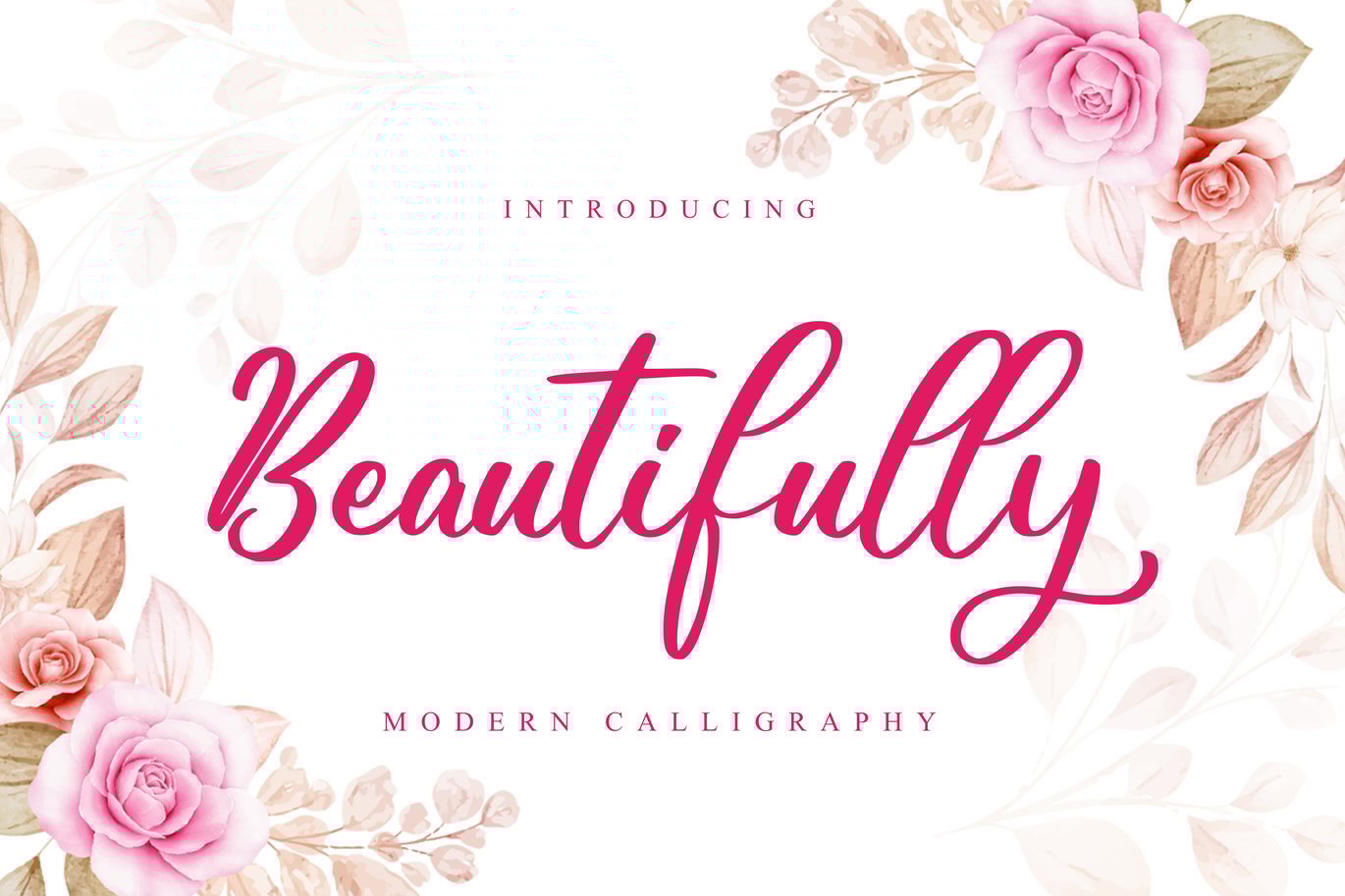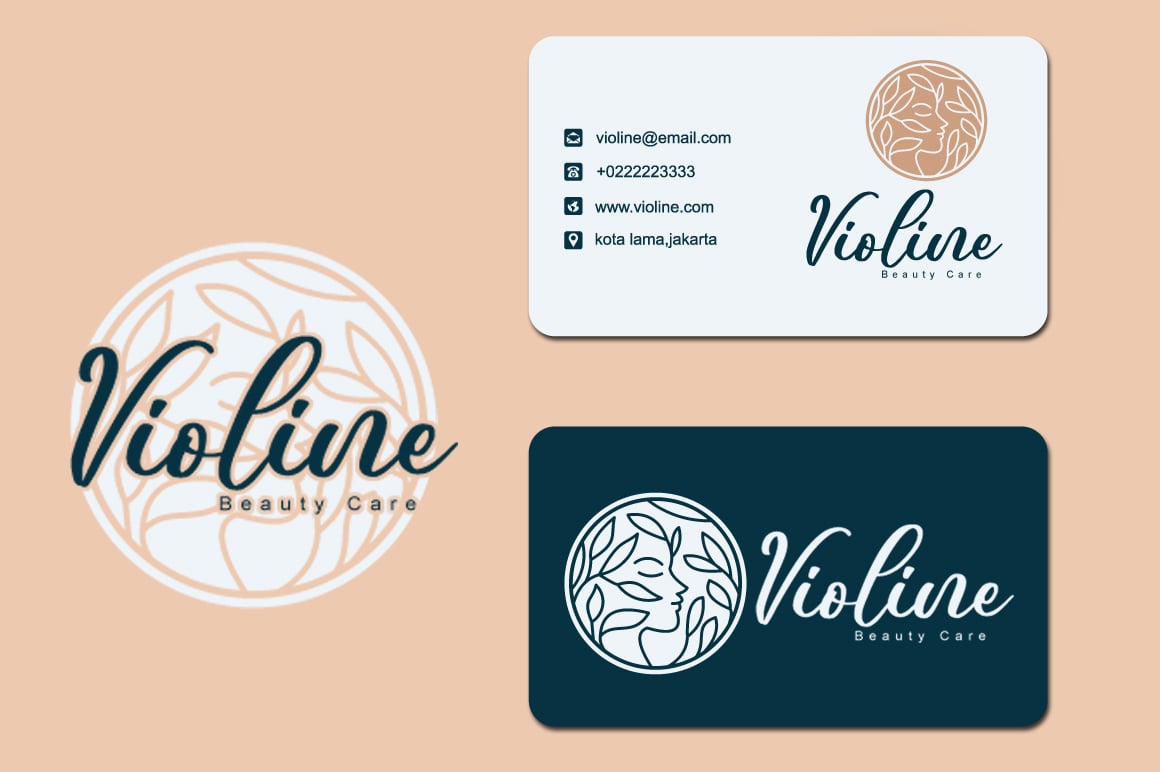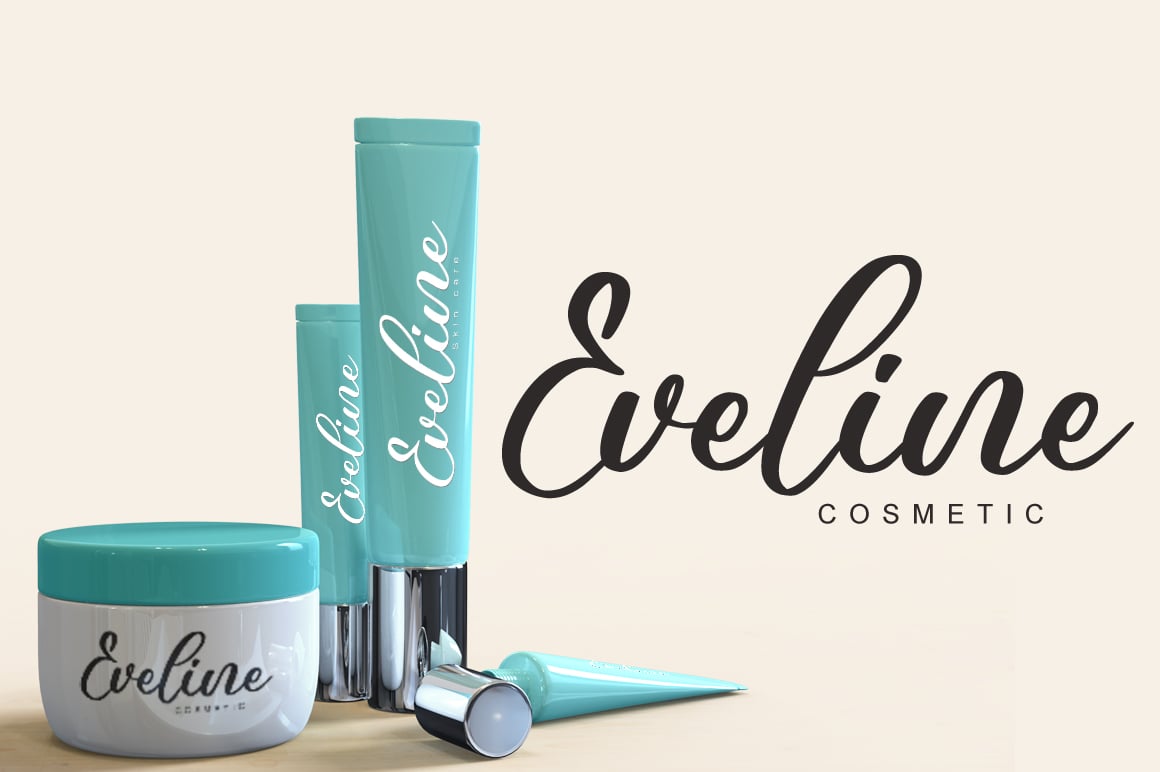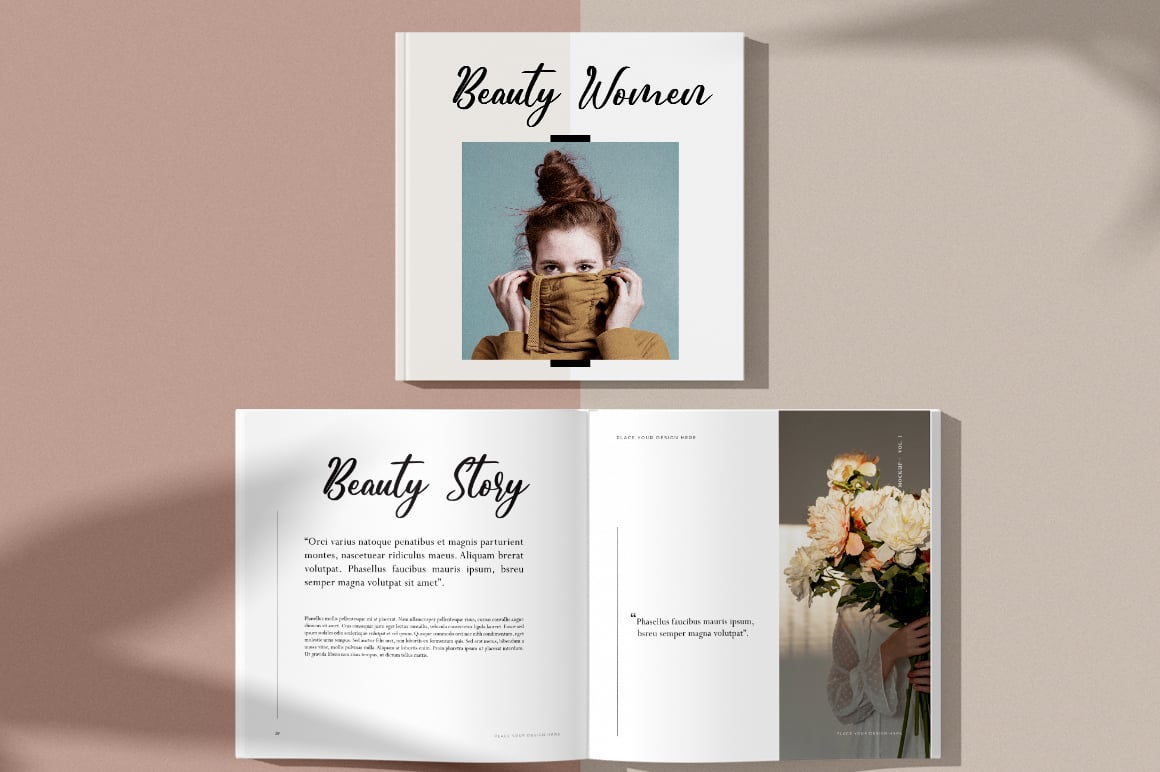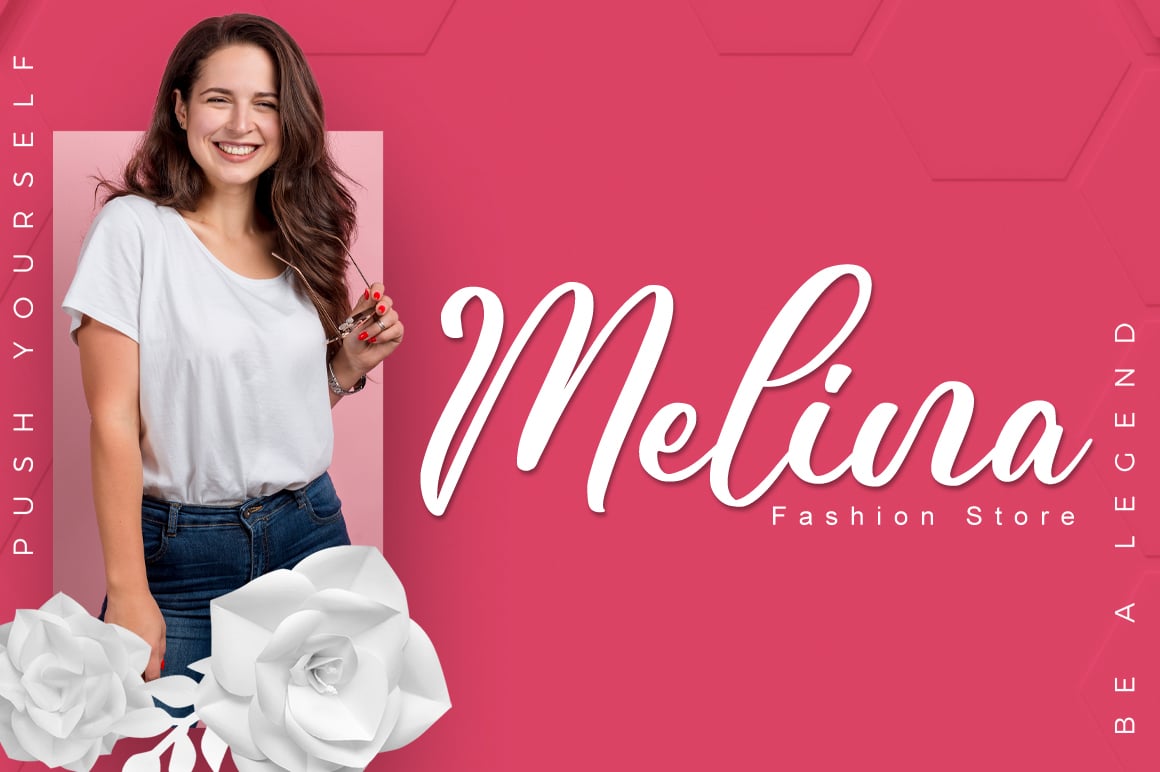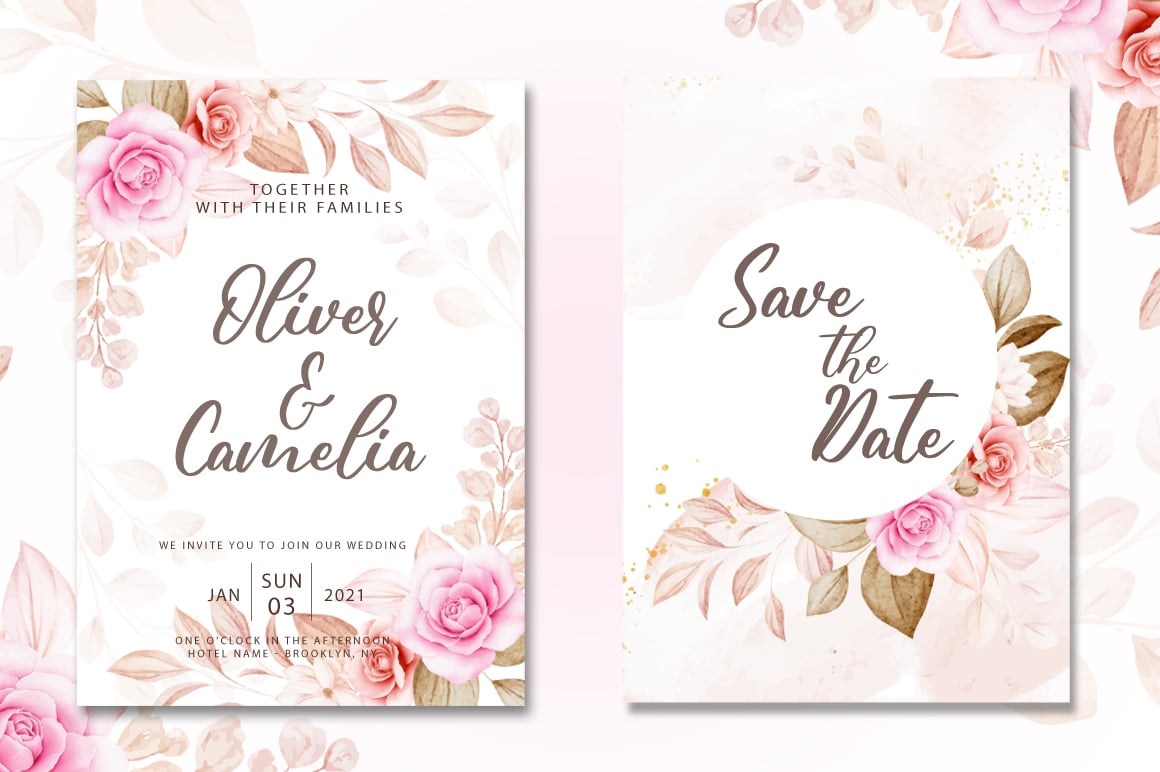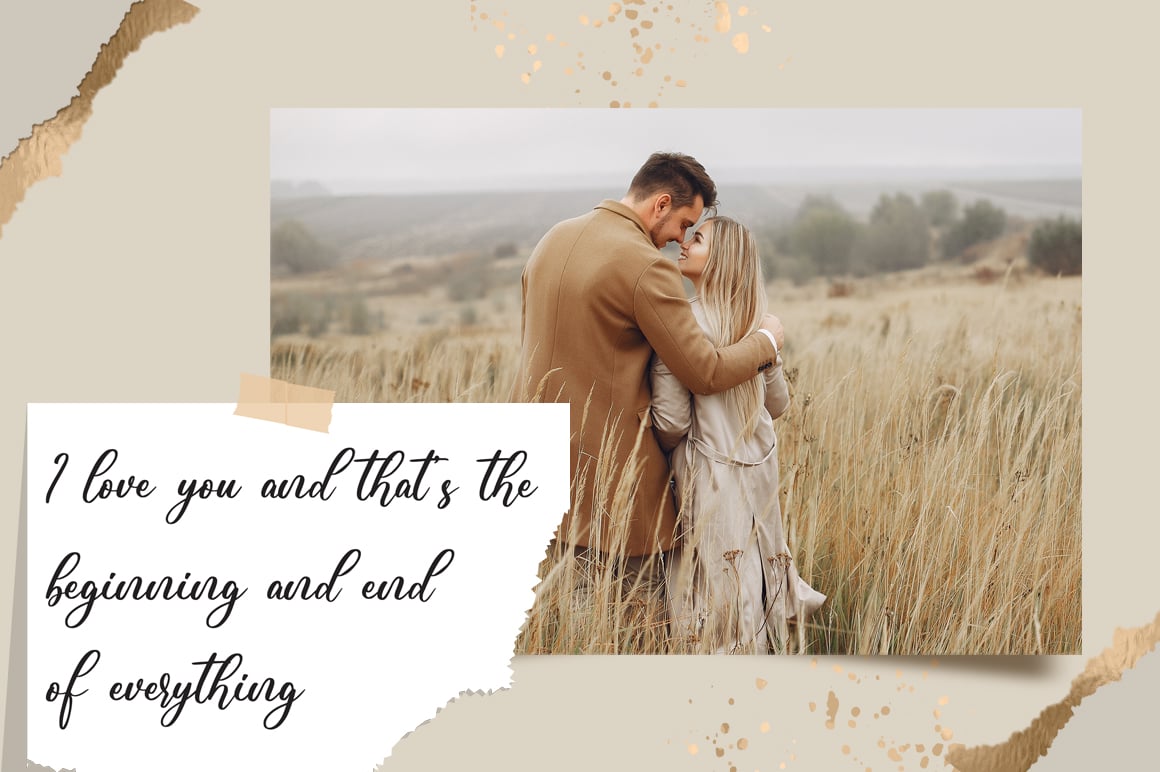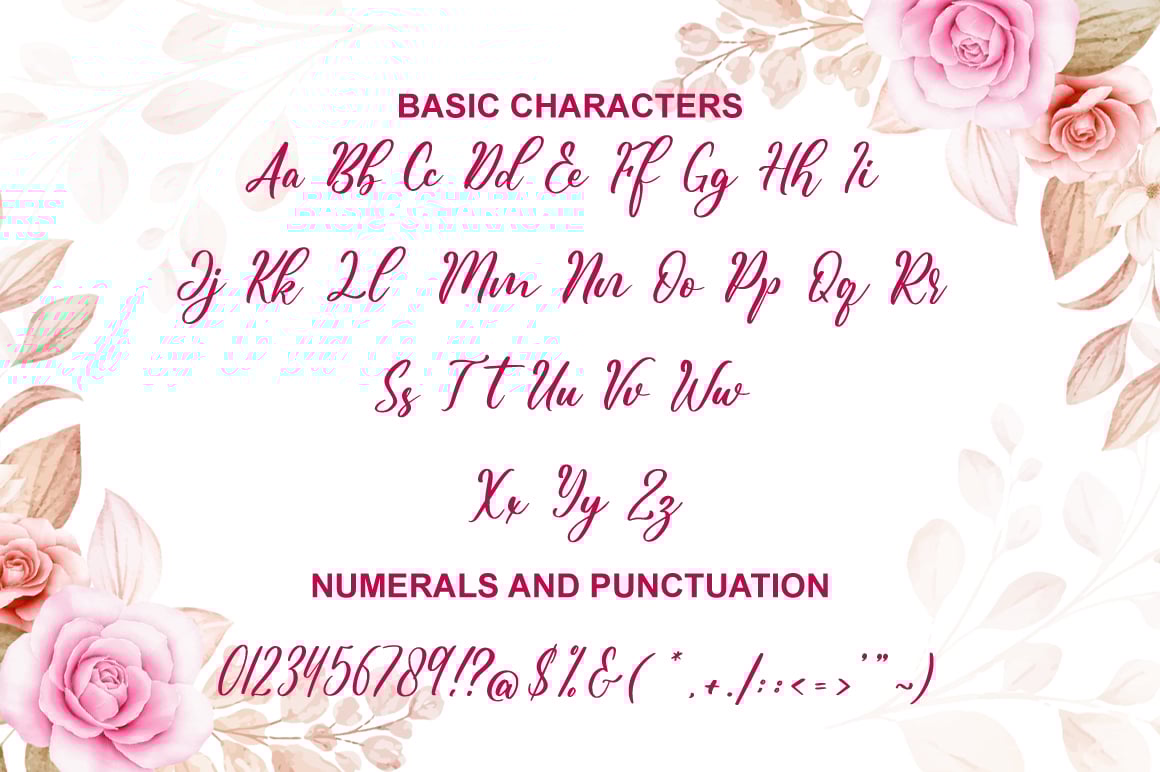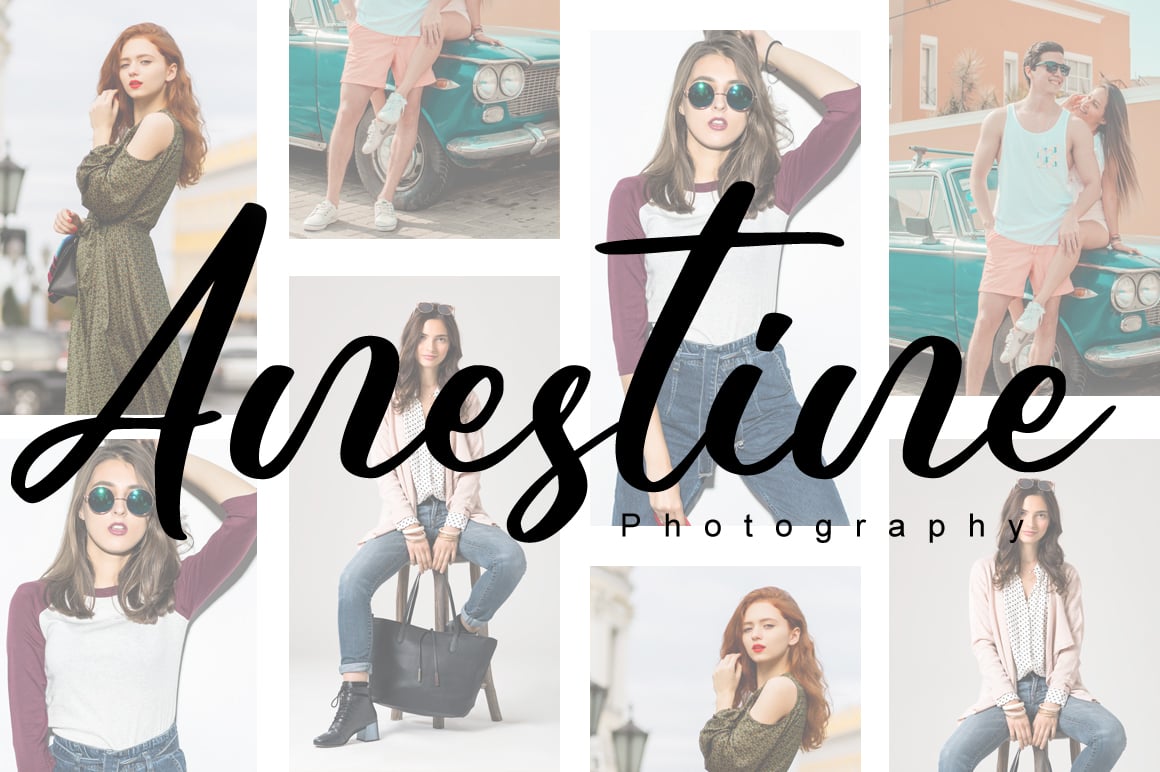
Beautifully – Wedding Font
Beautifully is an incredibly beautiful script font. It has a classy, elegant and modern look that can be used for logos, branding, invitations, stationery, wedding designs, social media posts, and much more!
- Ligatures, Swash, Alternates
- Letters, Numbers, punctuation